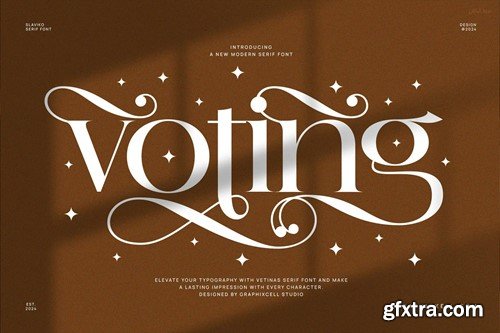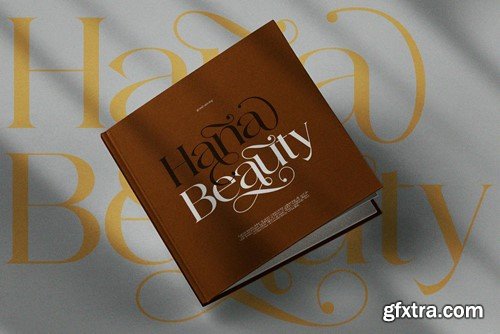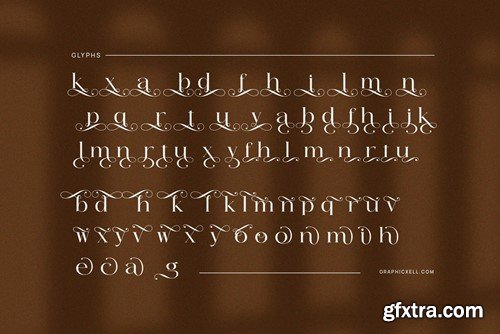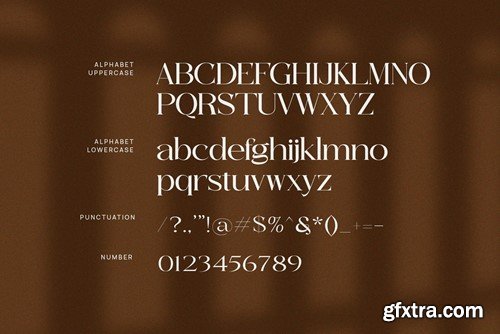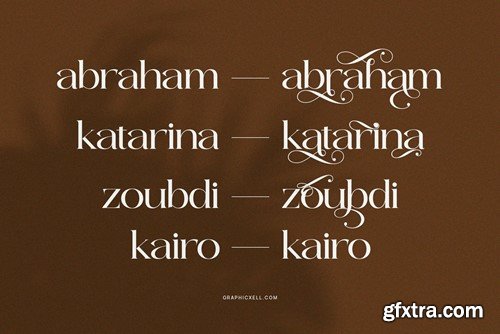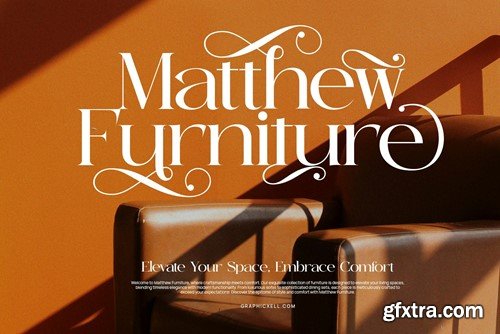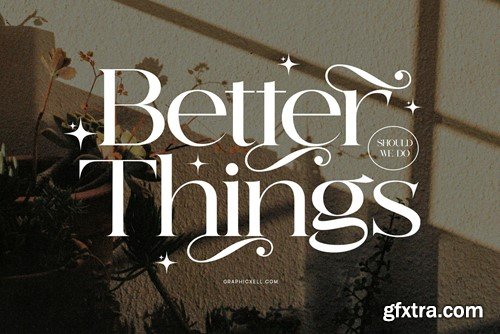
If you want to know more, please visit https://graphicxell.com Voting Elegant Ligature Serif Font has become a new attraction in the world of fonts. As a serif font, it focuses on the striking counterstrokes. Not all of the counter strokes are pointed, but some of them come rounded. Legibility is one of the advantages of this font. It also has a clearer contrast between the thick and thin parts. Besides that, it gives a graceful and professional impression. In graphic designs, this serif font is best for classic style because it brings a traditional and luxurious look. So, it is appropriate for a company to show its stability and reliability. But it can also be used in modern and trendy graphic designs as it adds a touch of uniqueness. With the right application, the Bosting Elegant Ligature Serif Font can give a stronger impression. Moreover, it can communicate a professional image for a certain product or brand. What's Included: Recommended using Adobe Illustrator or Adobe Photoshop. Wish you enjoy our font and if you have any questions, don't hesitate to drop a message & I'm happy to help :)